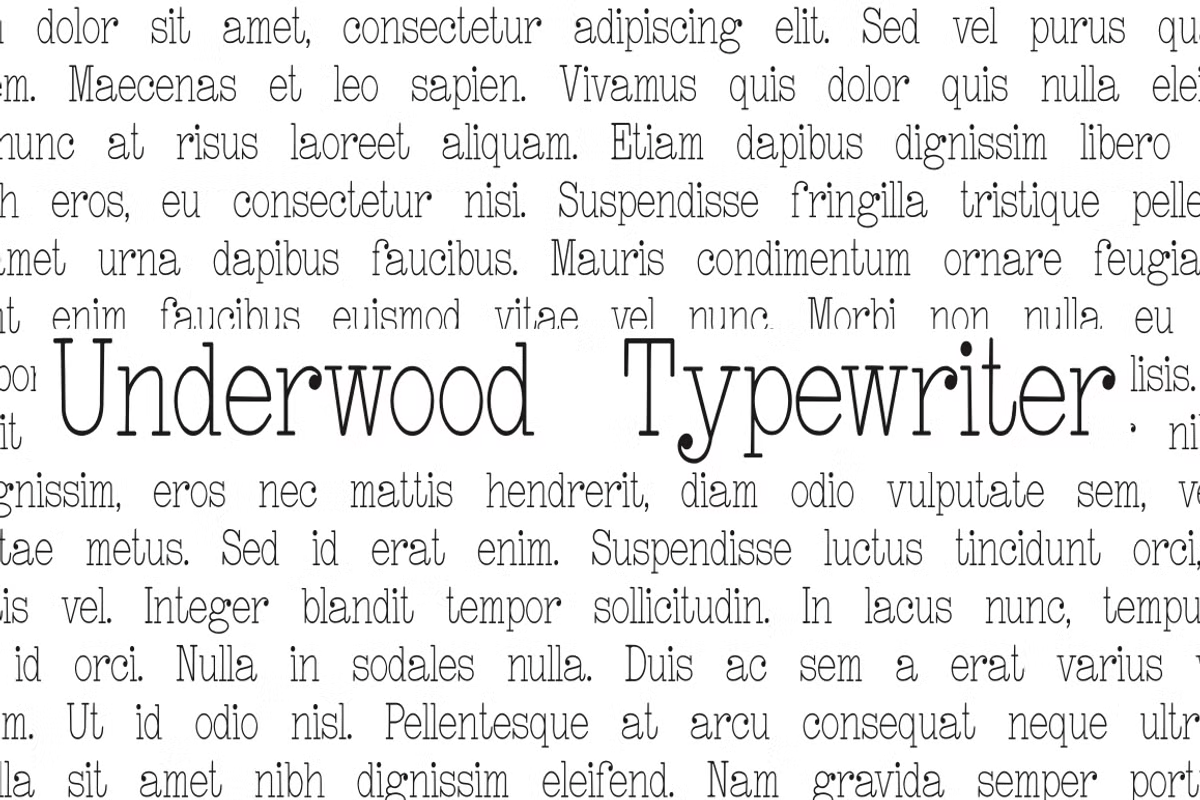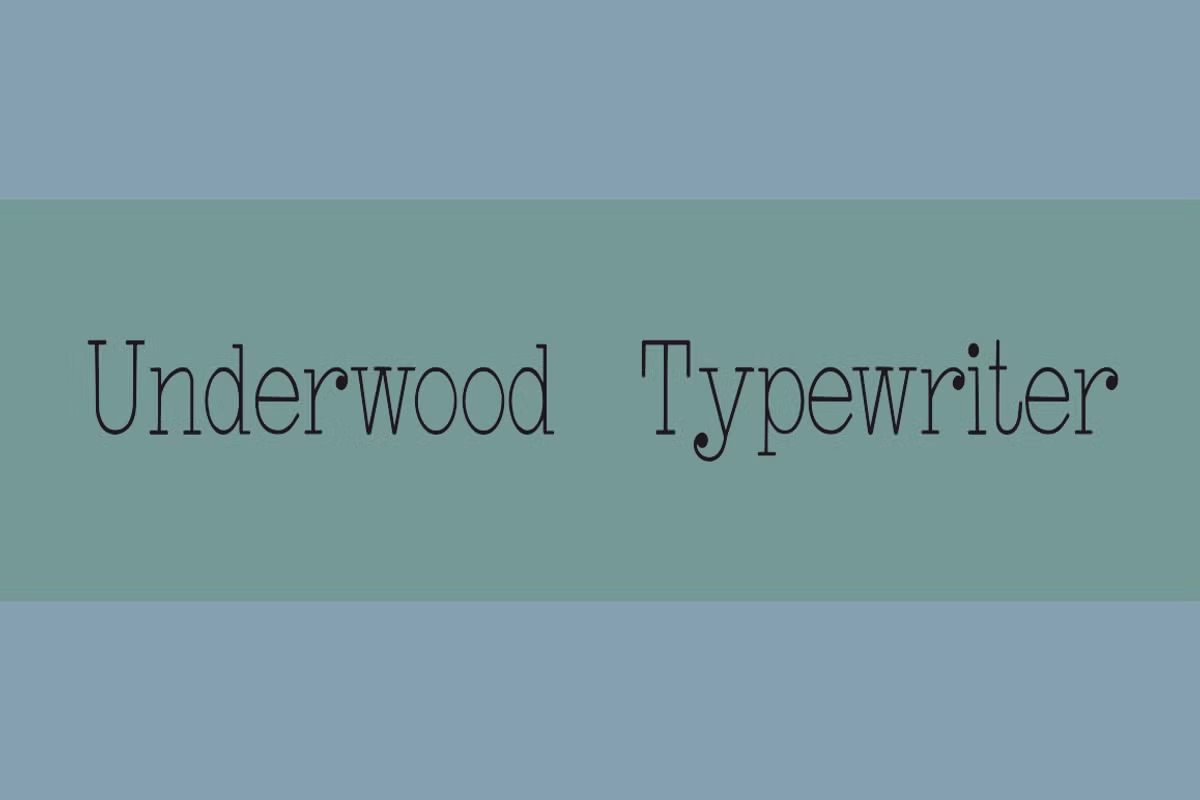
Underwood Typewriter
Font Family by Intellecta Design
A typewriter font design, great for mimicking the effect of type writing older machines. Family Language Supports: Albanian, Danish, Dutch, English, Estonian, Faroese, French, German, Icelandic, Italian, Malagasy, Norwegian, Portuguese, Spanish, Swedish